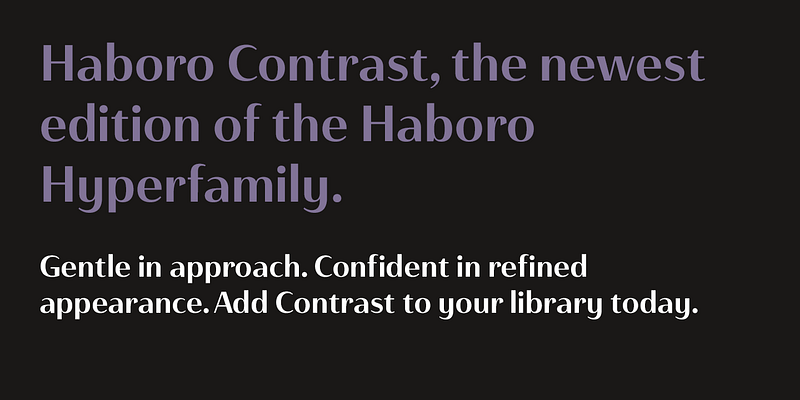
Haboro Contrast
Meet Haboro Contrast, the stylish little sister of the Haboro hyperfamily. While built from the same clean, geometric shapes of Haboro Sans, this new addition has been rebalanced for elegant performance.